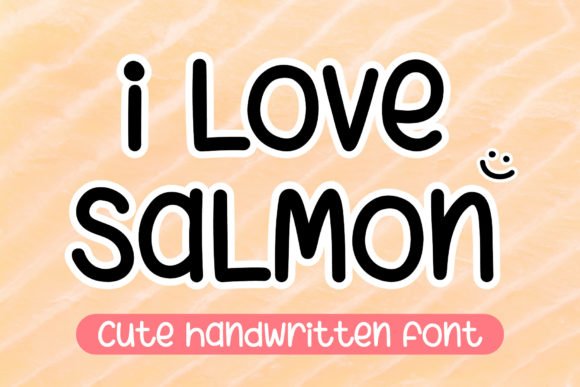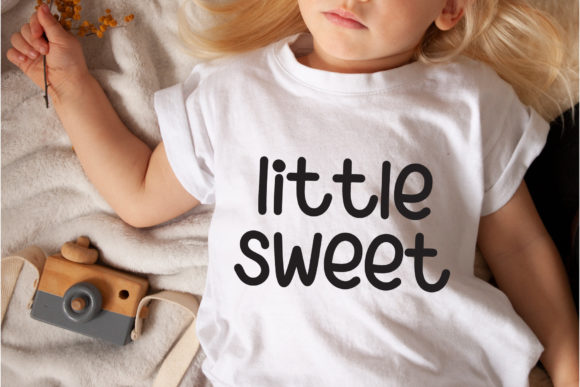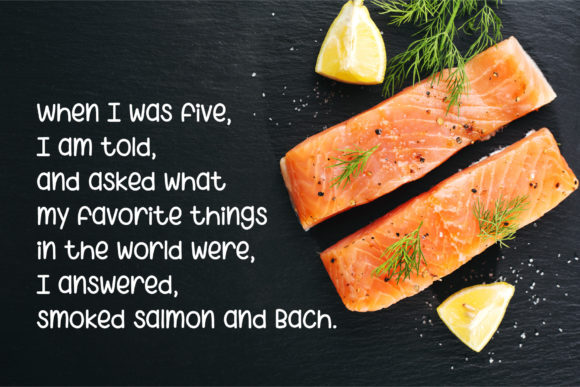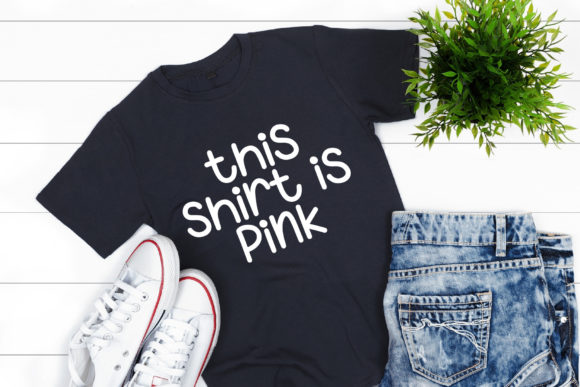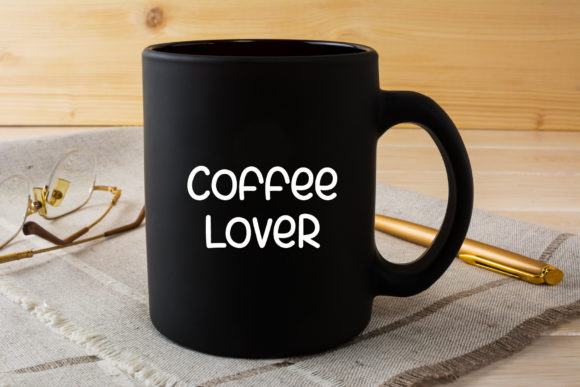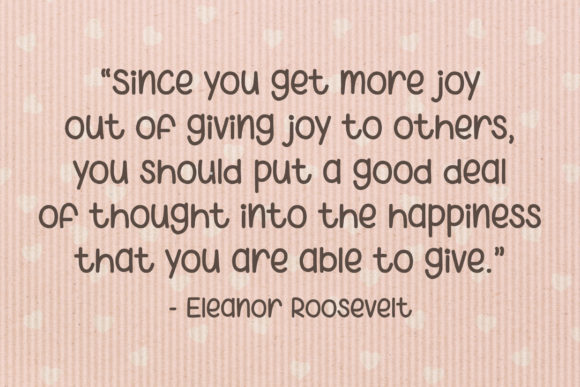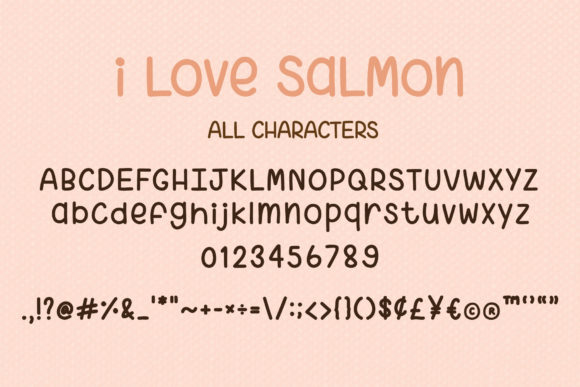
The Perfect Catch: Discovering the I Love Salmon Font
You know that moment when you’re browsing through fonts, and one catches your eye? For designers, it’s like stumbling upon a hidden treasure. And that’s exactly what happened when I discovered the I Love Salmon Font. Its playful, handwritten style had me hooked from the very start.
As it turns out, I Love Salmon Font is the perfect fit for all your creative needs. Whether you’re crafting social media posts, designing posters, or creating cute greeting cards, this friendly font is sure to bring a smile to your audience’s face. Its quirky style adds a touch of personality to any design, making it a valuable asset for designers looking to stand out.
I Love Salmon Font Key Features
- Font Family: I Love Salmon is a unique, custom font designed to evoke a playful, emotive feel.
- Unique Characteristics: I Love Salmon features a distinctive, hand-drawn feel with subtle imperfections, adding a touch of personality to any design.
I Love Salmon Font Review
Overall, I have mixed feelings about the “I Love Salmon Font”. It’s a fun, playful font that could add a touch of whimsy to your design projects.
- The font is well-suited for casual, informal designs, such as social media graphics or advertising materials.
- The font’s rounded edges and loose connections between letters make it easy to read, even at smaller sizes.
- The font is highly customizable, allowing you to adjust the color, size, and spacing to suit your design needs.
- The font’s playful, casual nature may not be suitable for more formal or professional designs.
- The font may not be as effective at larger sizes, where its rounded edges can appear blurry or distorted.
- The font’s high customizability can make it difficult to achieve a consistent look across different elements of your design.
Overall, I would recommend the “I Love Salmon Font” for designers who want to add a touch of personality to their projects. However, it may not be the best choice for more formal or complex designs.
The I Love Salmon font is ideal for:
- Food and beverage branding (e.g., salmon restaurants, seafood markets)
- Outdoor and nature-themed designs (e.g., fishing, hiking, camping)
- Summer-themed designs (e.g., beach, pool, BBQ)
Alternatives to “I Love Salmon Font” for Designers
Pacifico is a beautiful, elegant script font perfect for creating a luxurious and high-end look. It’s ideal for use in branding, packaging, and advertising materials where a touch of sophistication is required.
Compared to I Love Salmon Font, Pacifico has a more refined and polished appearance, making it suitable for a wider range of design applications.
Great Vibes is a modern, cursive font that exudes a sense of fun and playfulness. It’s perfect for use in social media graphics, posters, and other promotional materials where a lively and energetic tone is desired.
Unlike I Love Salmon Font, Great Vibes has a more dynamic and expressive feel, making it ideal for designs that require a lot of movement and energy.
Alex Brush is a elegant, handwritten font that adds a touch of warmth and personality to any design. It’s ideal for use in invitations, greeting cards, and other materials where a personal and intimate tone is required.